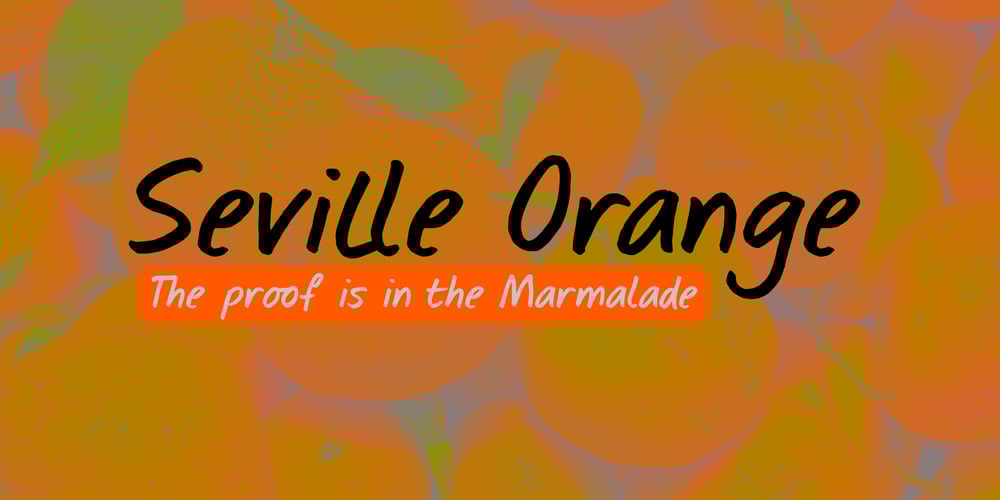
Seville Orange
Seville Orange font
Seville Orange Font Family was designed by David Kerkhoff and published by Kitchen Table Type Foundry. Seville Orange contains 2 styles and family package options. It is Orange time! The shops are flooded with sweet oranges and other citrus fruits, but for some reason, Seville (or Bitter) oranges are very difficult to obtain where I live. I really like marmalade, but you can only make it with Seville oranges. Maybe I should move to the UK… ;-)Seville Orange is a handwritten font. I used a marker pen and rough paper to create it. Seville Orange comes with a full set of double letter ligatures and extensive language support.